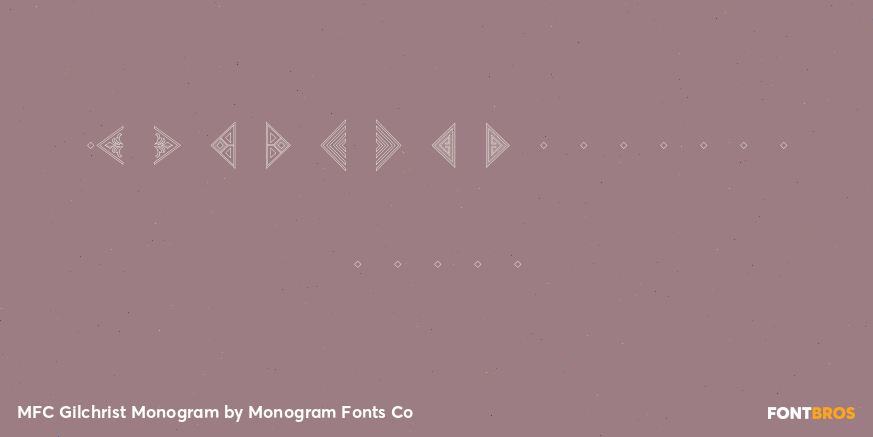
MFC Gilchrist Monogram
Font Family by Monogram Fonts Co
The inspiration source for MFC Gilchrist Monogram is an extremely ornamented letterset from a vintage embroidery publication from the early 1900's. We've digitally recreated the ornamental glyphs from the original design, and created a matching set of smallcaps in order to offer more versatility with this monogram. We have also created two additional sets of alternate glyphs with different fills for more variations. Experiment with all of these in different combinations for unique designs.